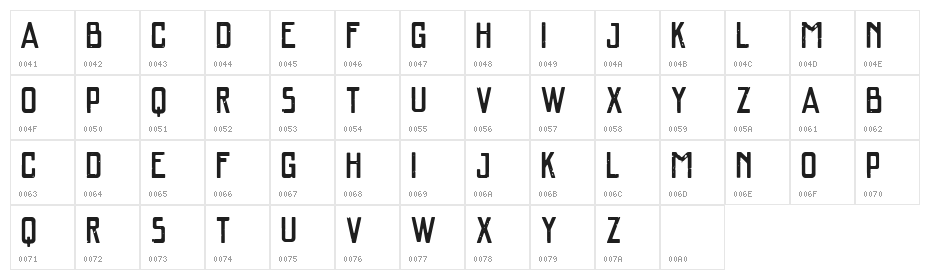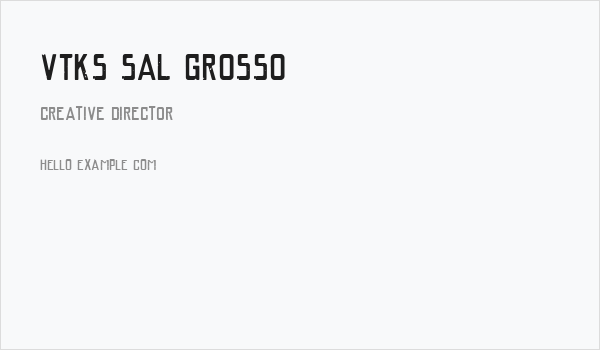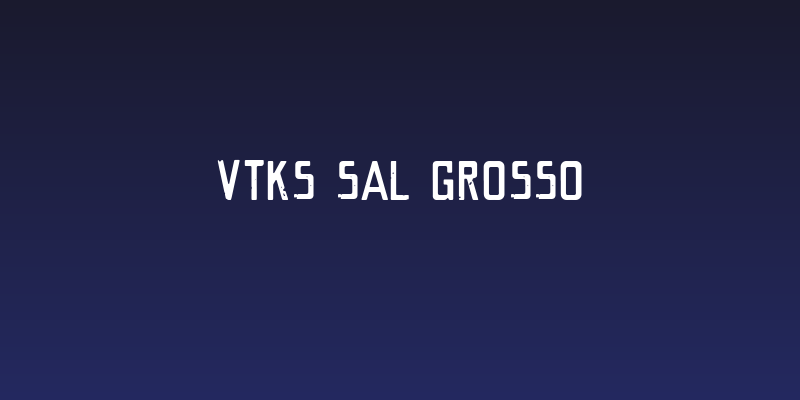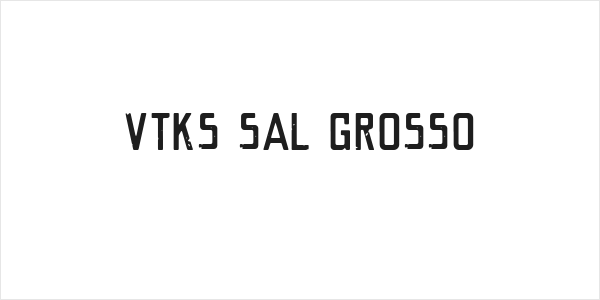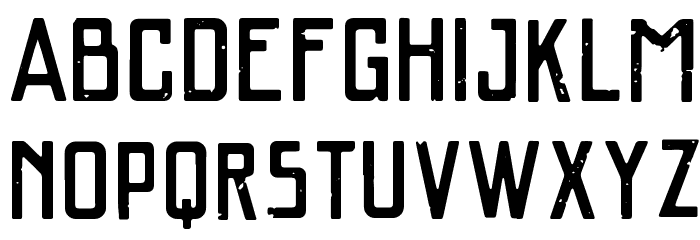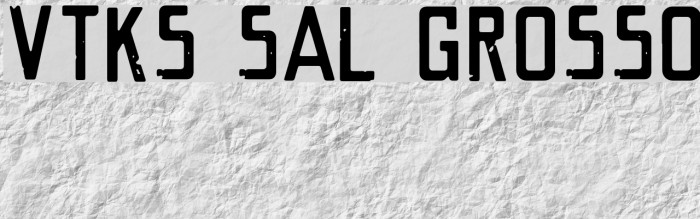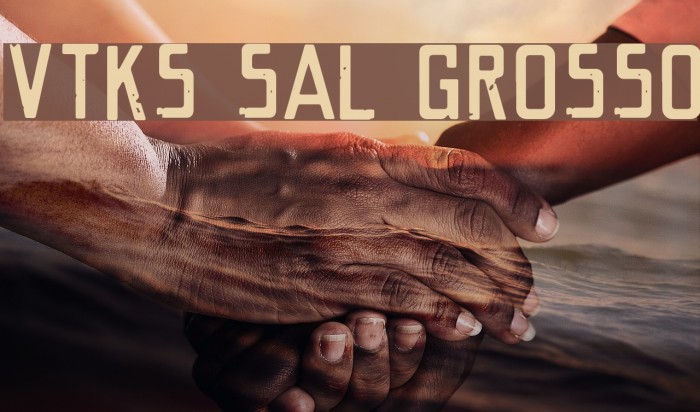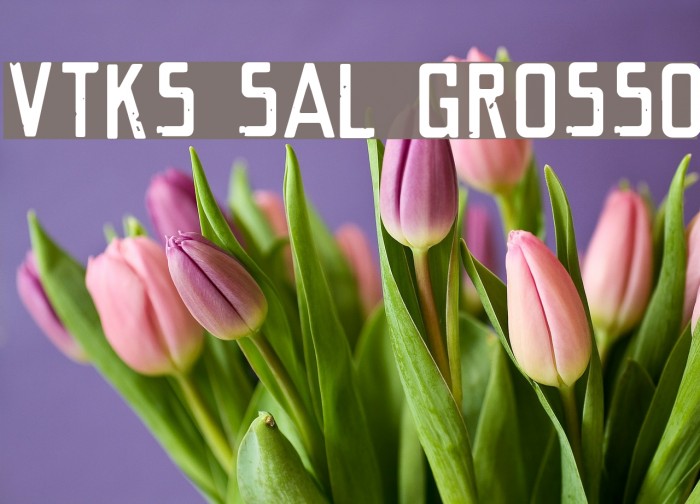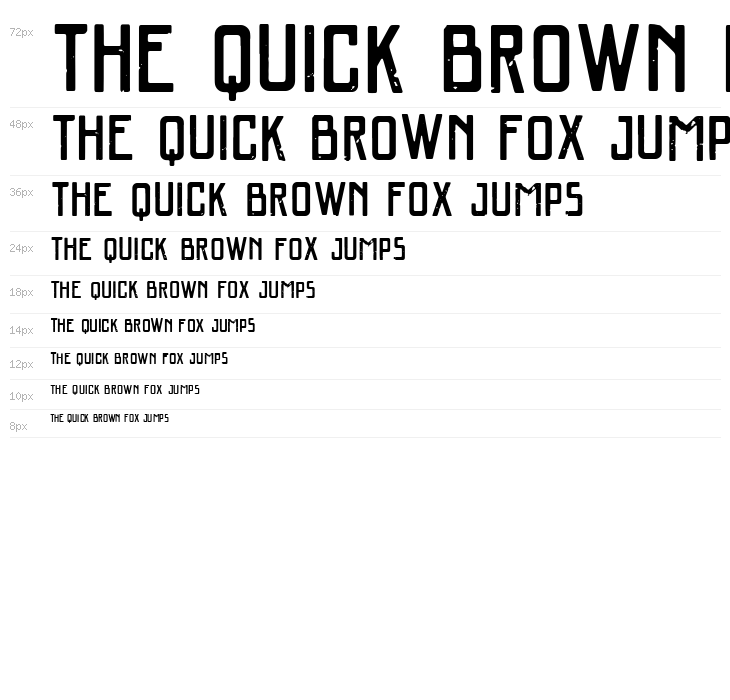
VTKS SAL GROSSO Font
VTKS SAL GROSSO Description
This font features a bold and rugged design with a distressed, grunge-like texture. The characters are uppercase, with a uniform height and width, giving it a monospaced appearance. The edges are slightly rounded, adding a touch of softness to the otherwise industrial and mechanical feel. The distressed texture gives it a worn, vintage look, making it suitable for projects that require a raw and edgy aesthetic. The font's boldness ensures high visibility, making it ideal for attention-grabbing headlines or titles.
| Overall Style | Vintage, Industrial |
| Proposed Projects | Perfect for posters, album covers, branding for edgy products, or any design needing a vintage industrial feel. |